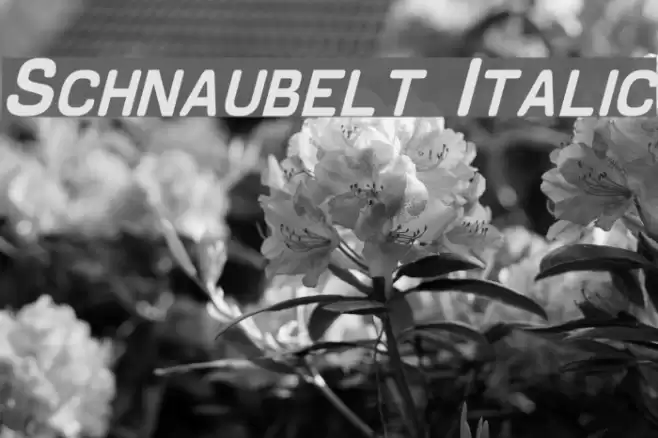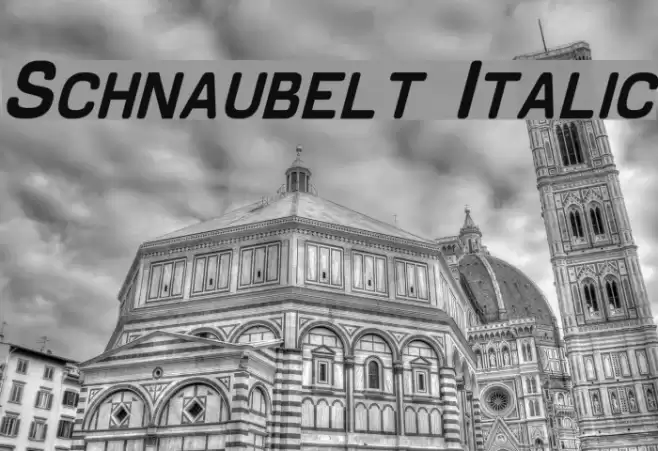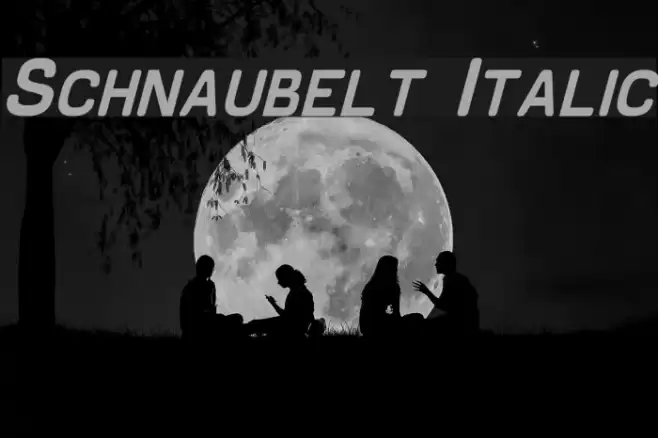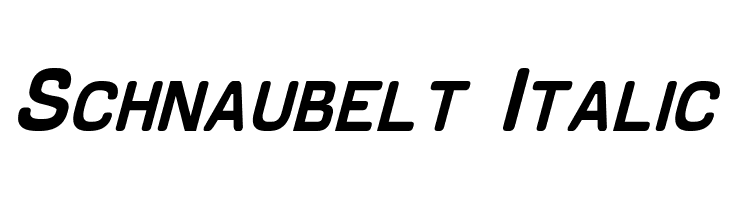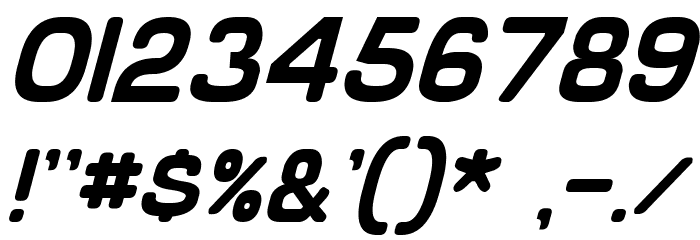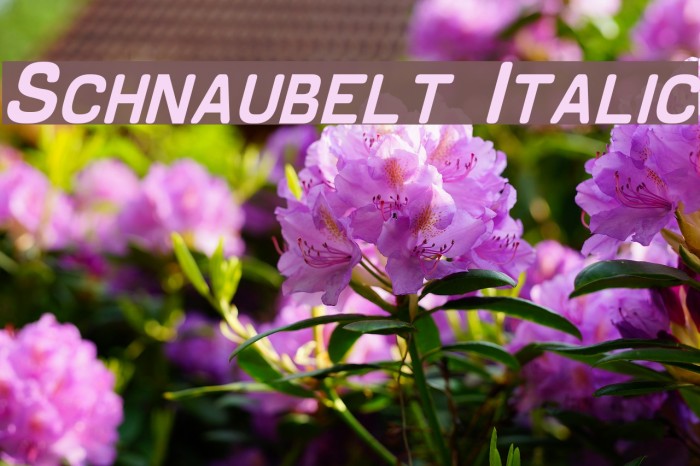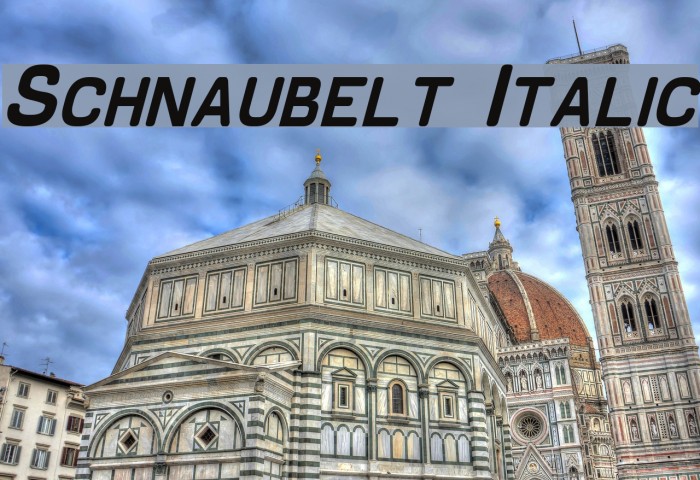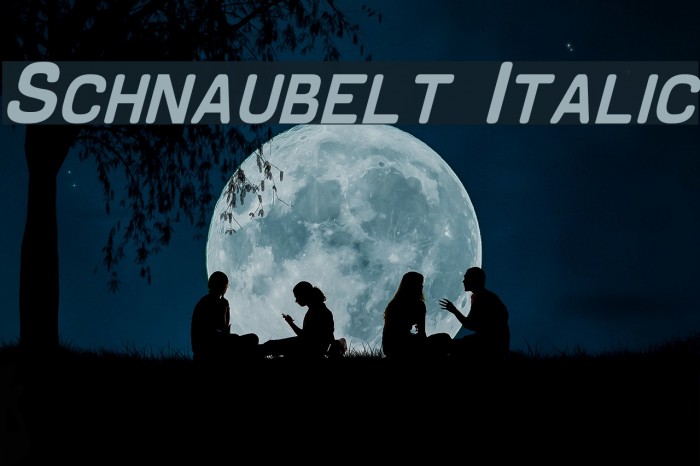
Schnaubelt Italic Font
Schnaubelt Italic Description
This font exhibits a sleek and modern italic style, characterized by its smooth curves and slightly condensed form. The letters are slanted, giving a dynamic and forward-moving appearance. The strokes are consistent in thickness, providing a uniform look across all characters. The numerals and special characters maintain the same italicized style, ensuring cohesion throughout. The font's design is clean and legible, making it suitable for various applications where a contemporary and stylish look is desired.
A sleek, modern italic font with smooth curves and consistent stroke thickness from Uncategorized fonts.
- Proposed Projects: Ideal for branding projects, modern advertising, digital media, and dynamic logo designs.